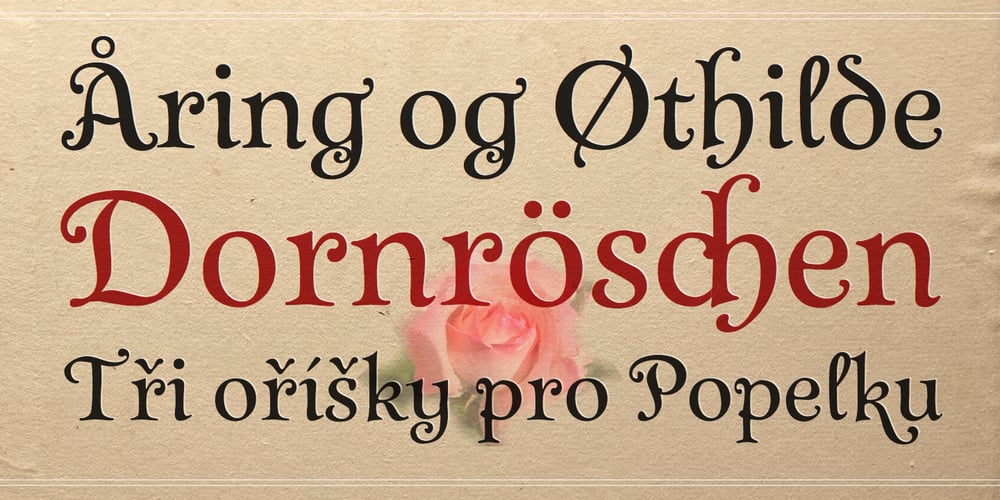
Abendschroth Font Family was designed by Andreas Stötzner and published by SIAS. Abendschroth contains 3 styles and family package options. Abendschroth is a wonderful dreamy and whimsical typeface for novel titlings and other fiction headline settings. Also a sophisticated choice for lullabies, girl’s literatur, murder poems, fairy tales, short stories and christmas gift books. New! There is now two alternative fonts: Abendschroth Scriptive and Abendschroth Slim. Even more jolly, whimsical and – wonderfully odd! – Enhance your means of typographic expression with this brandnew romantic fonts. Abendschroth supports every Euro-Latin language. For the choice of a similar font go to Albyona.